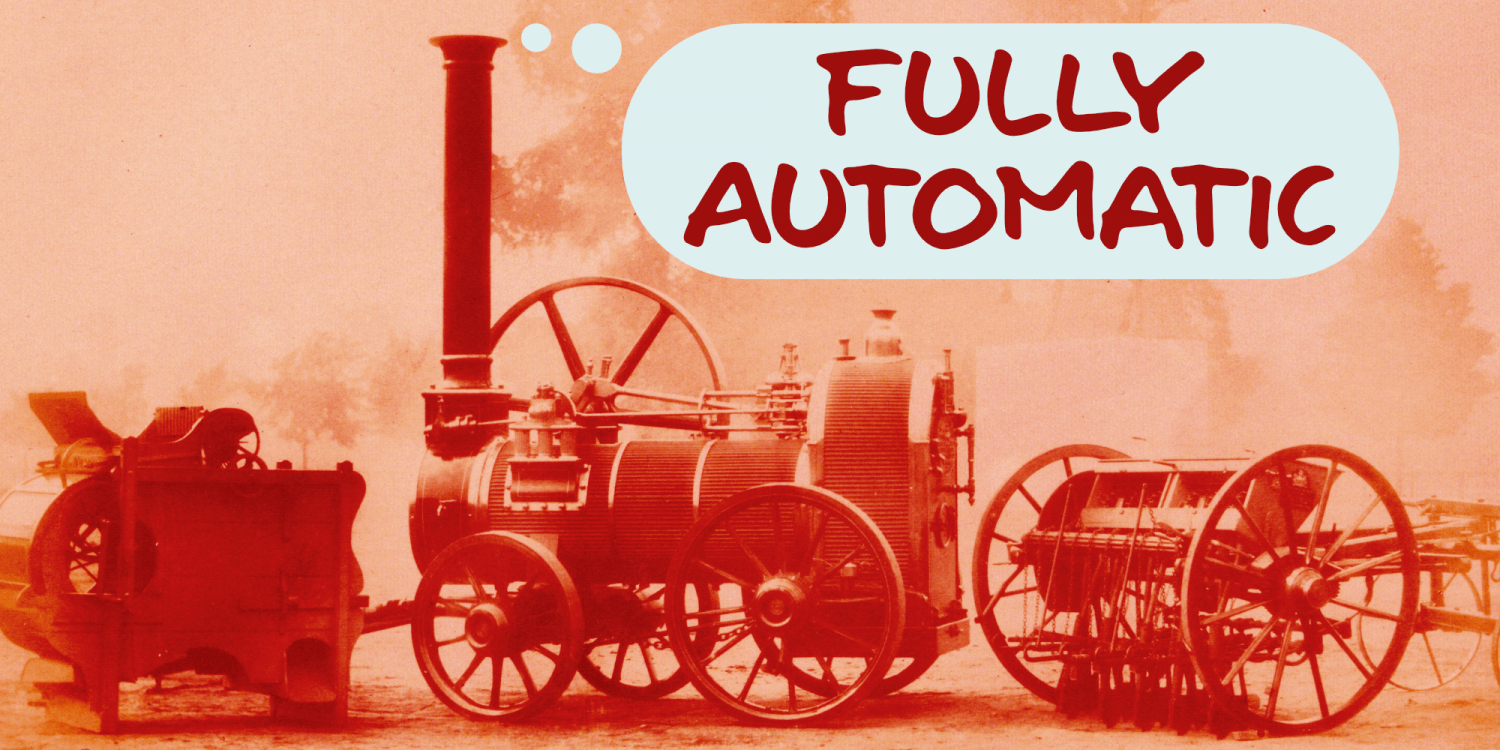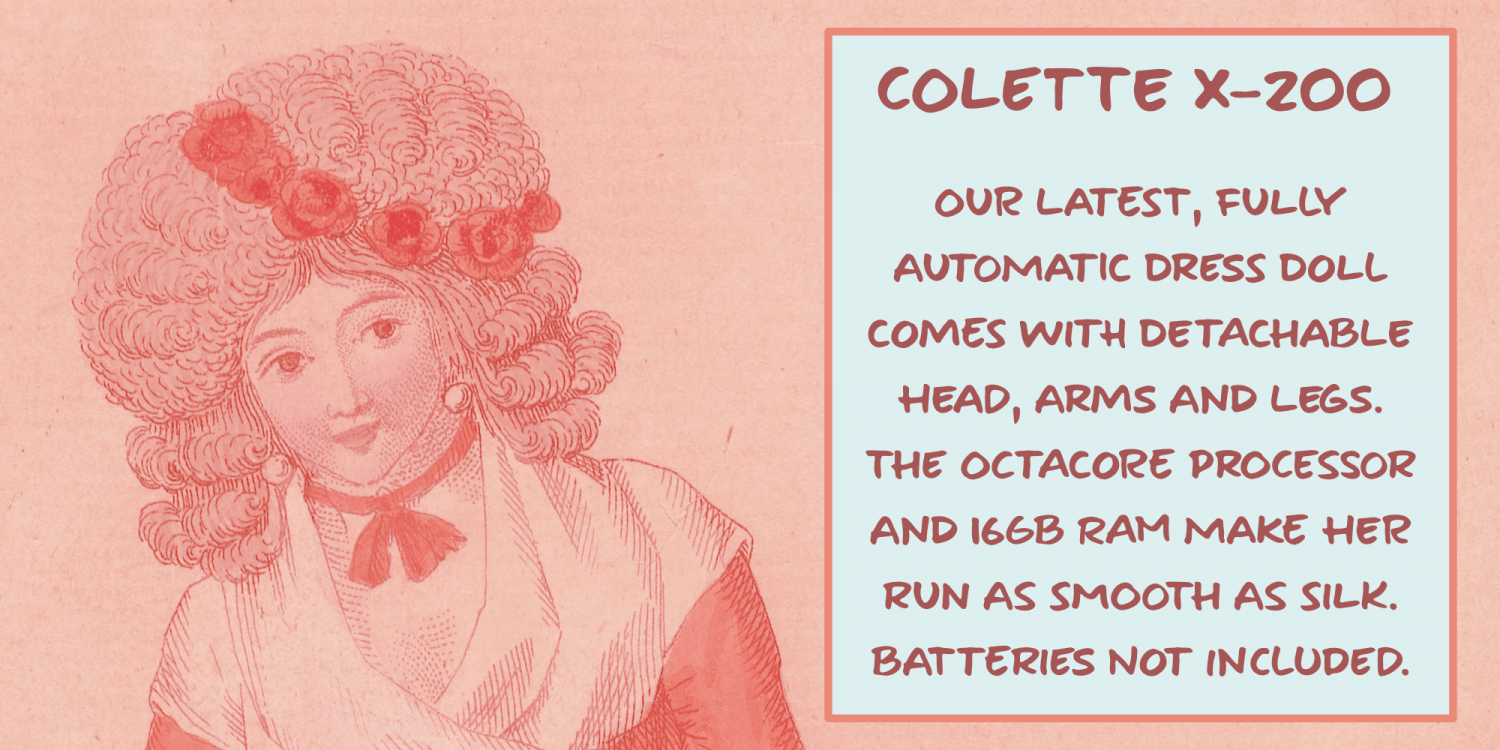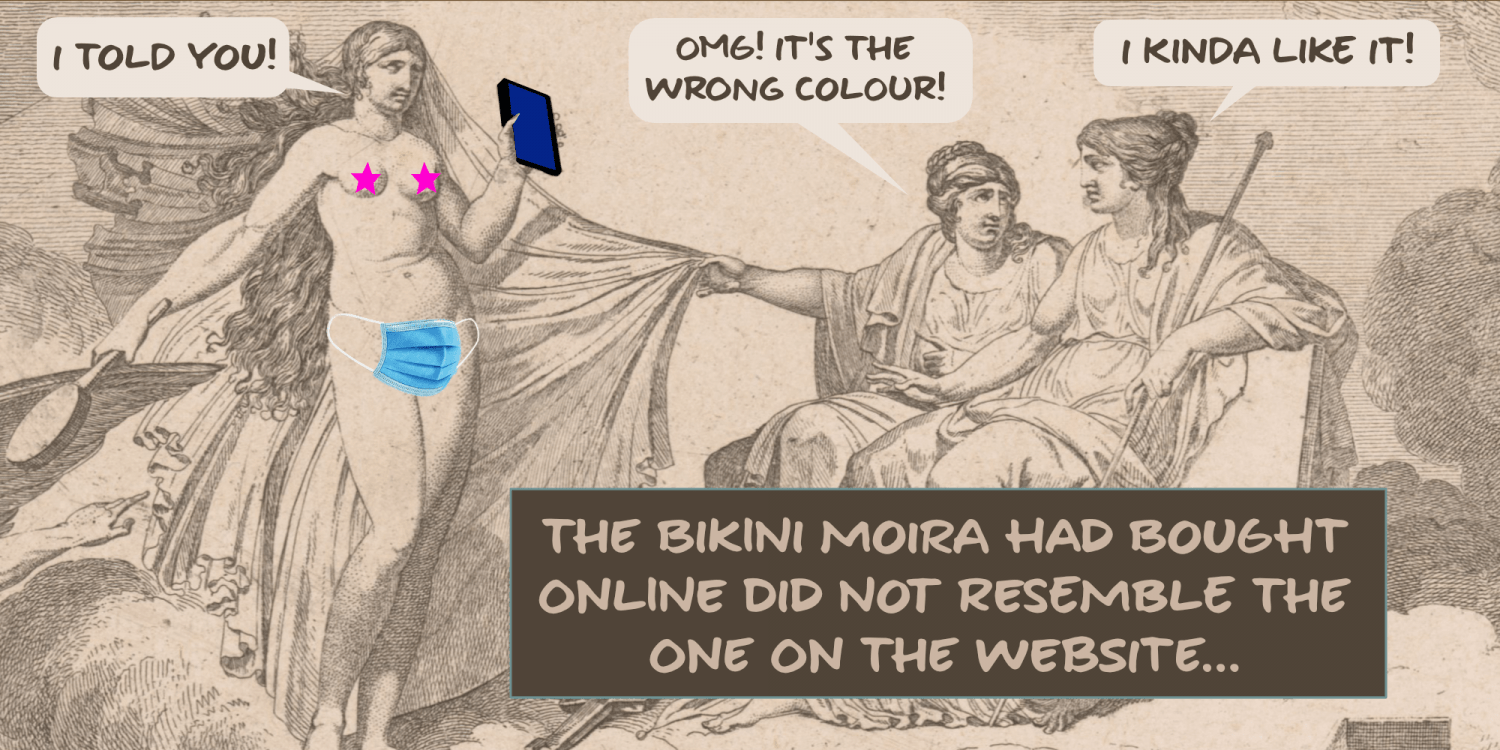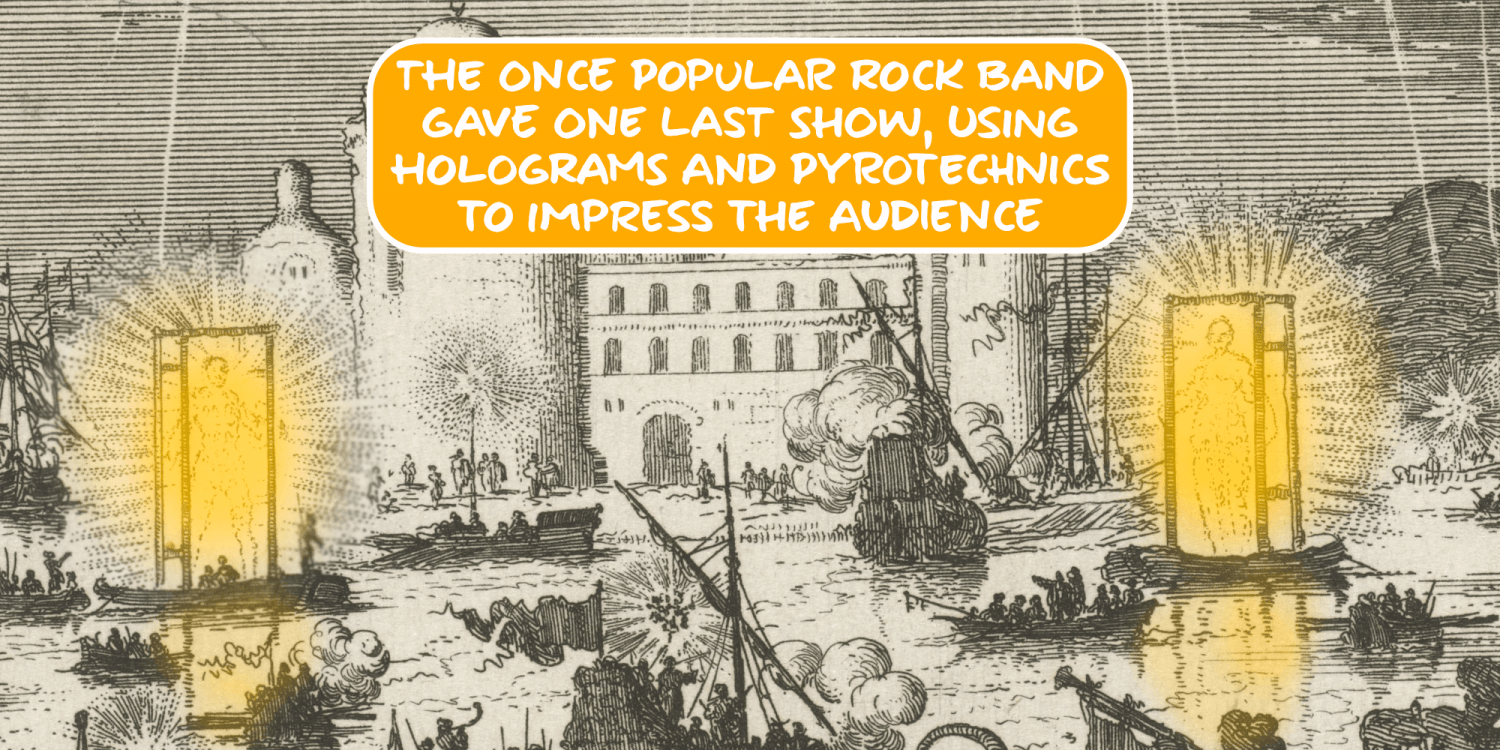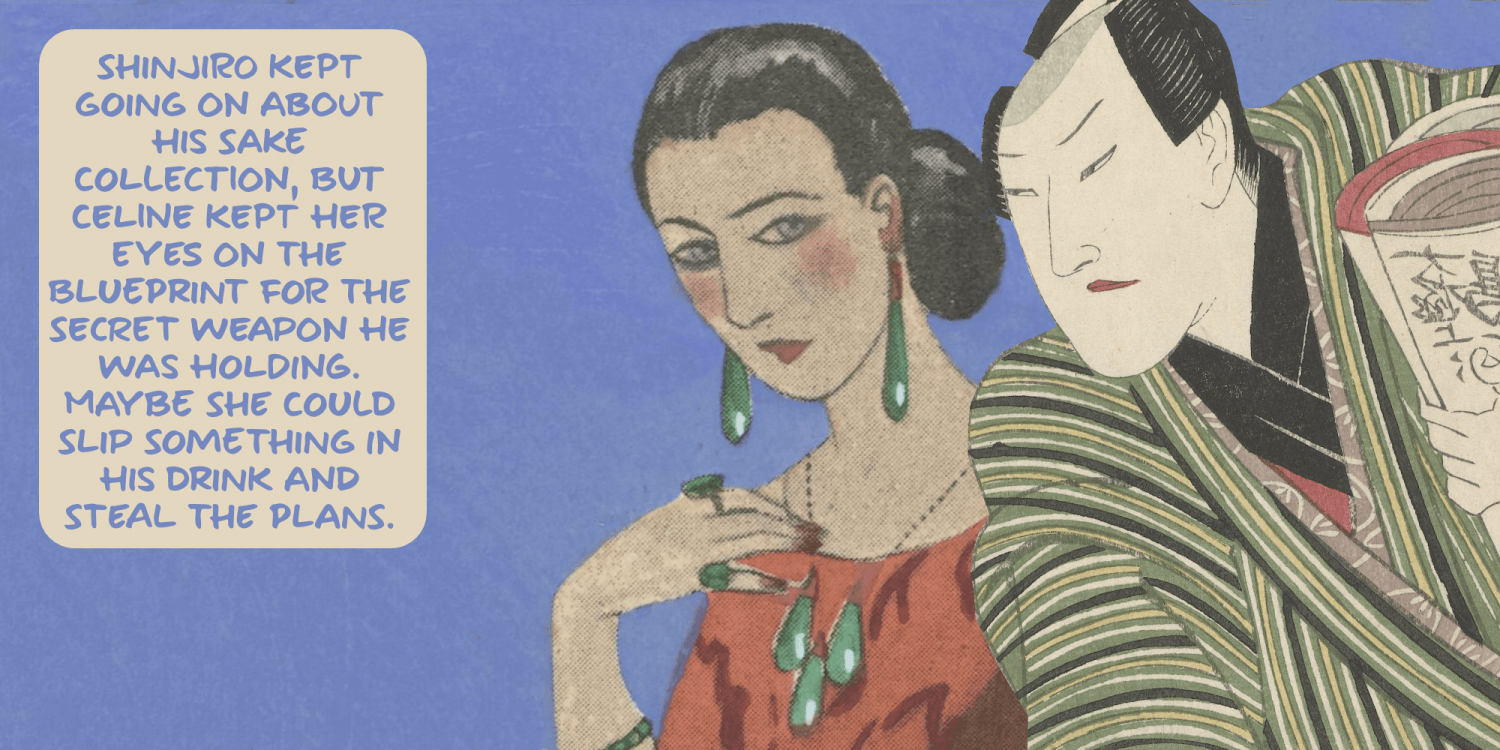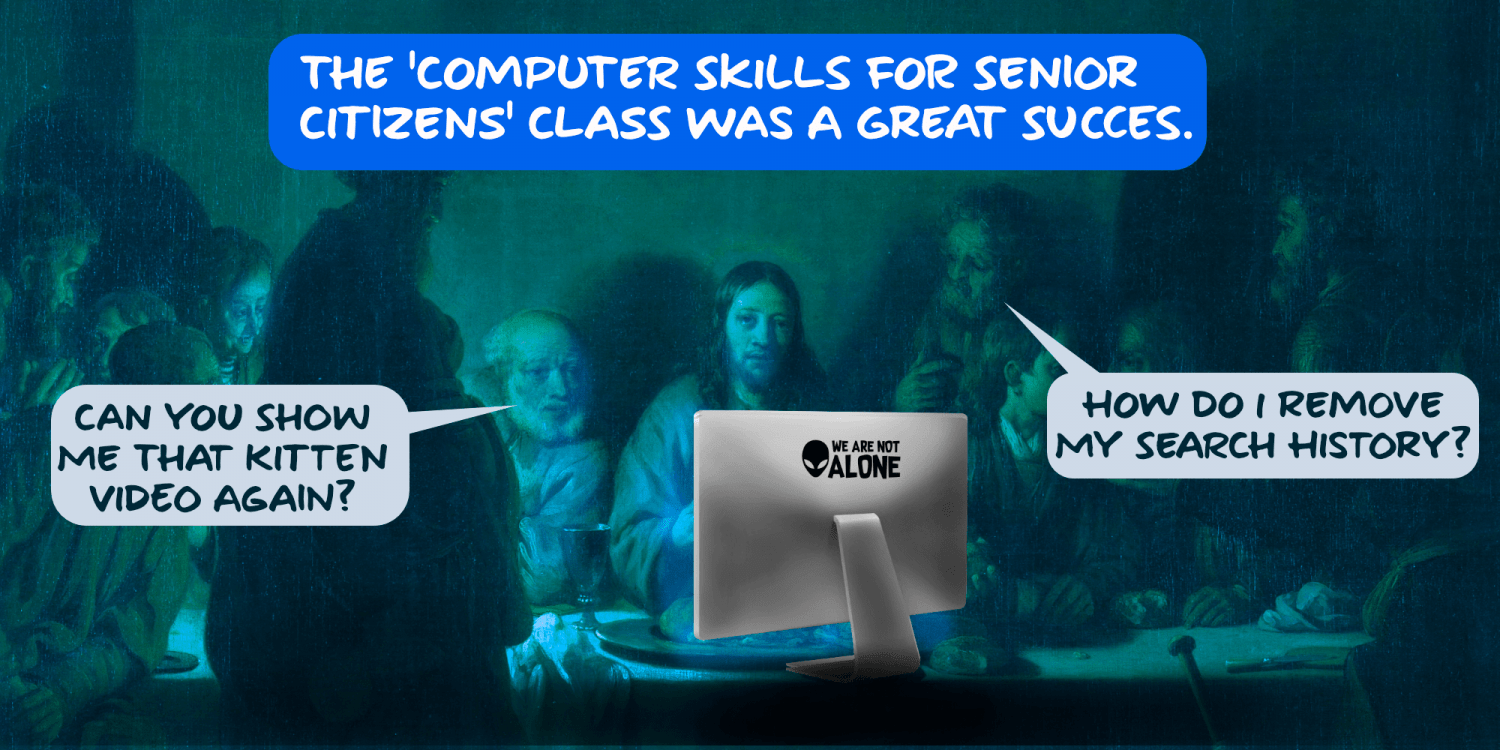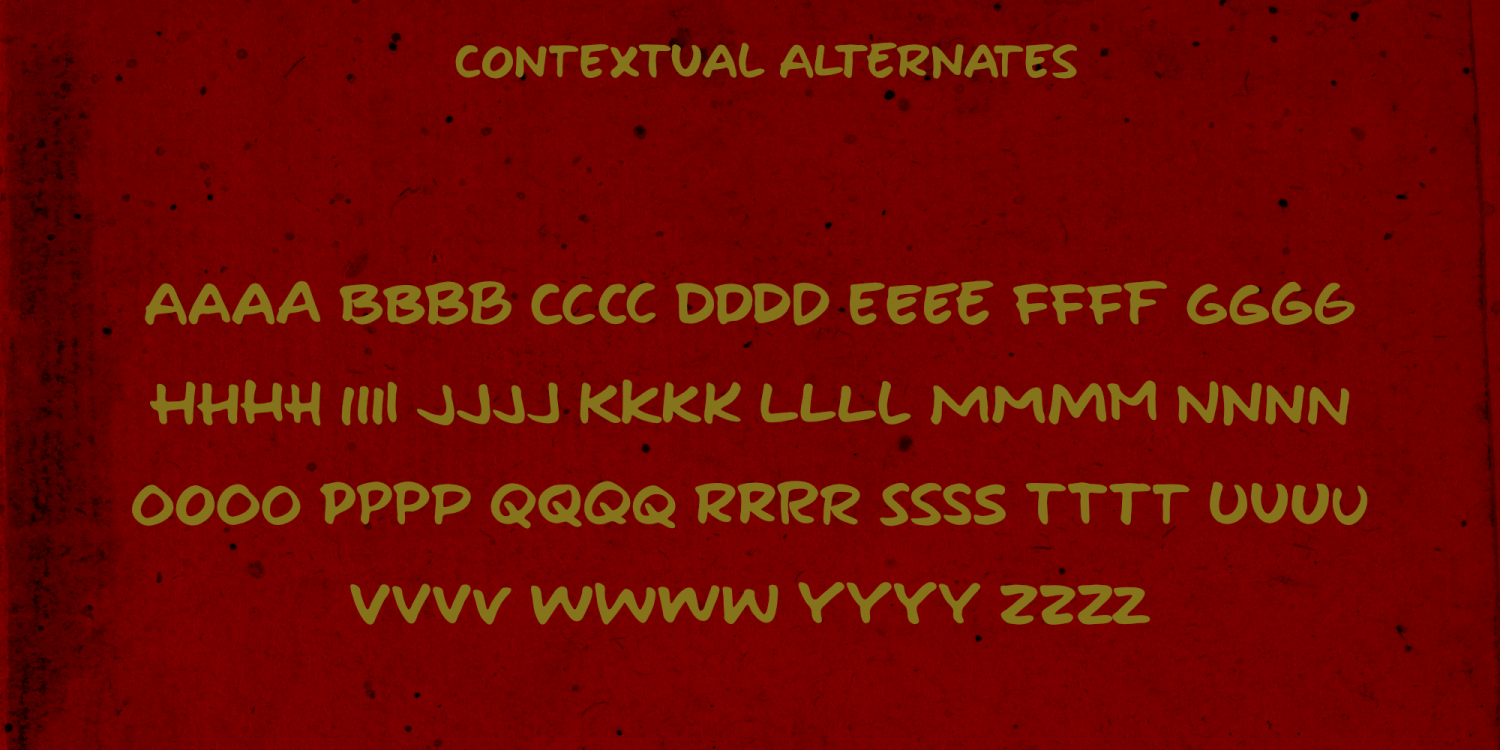
Fully Automatic
I raise chickens for eggs and meat. I usually buy fertilized eggs online and place them in my incubator, which says that it is 'fully automatic'. Of course I added that rather random introduction to tell you how I came up with the name for this new font... Fully Automatic is a handmade cartoon font: I used a sharpie pen to draw the glyphs onto rough paper. The result is a wobbly, yet quite clean cartoon font. Fully automatic comes with extensive language support and two sets of alternates for the lower case glyphs that cycle as you type.
Fully Automatic by Hanoded